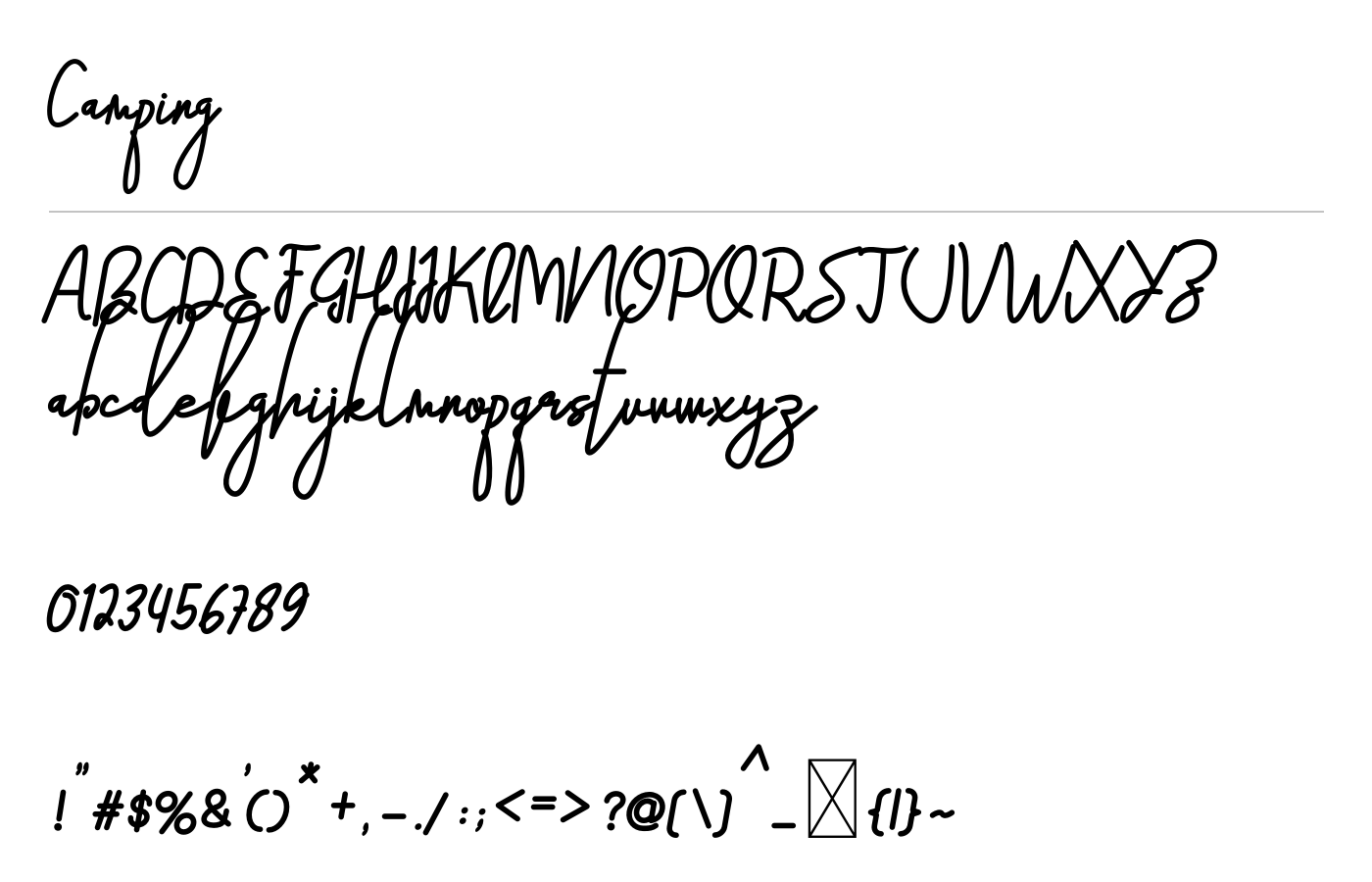
Camping Font is a lively, handwritten script with a casual, friendly personality. Its tall, flowing letterforms and smooth, consistent stroke weight give it an approachable and dynamic feel, making it ideal for personal branding, outdoor-themed projects, and playful designs. This font works best in creative headlines, invitations, and packaging where a warm, handcrafted touch is desired.
Camping Font
About Camping Font